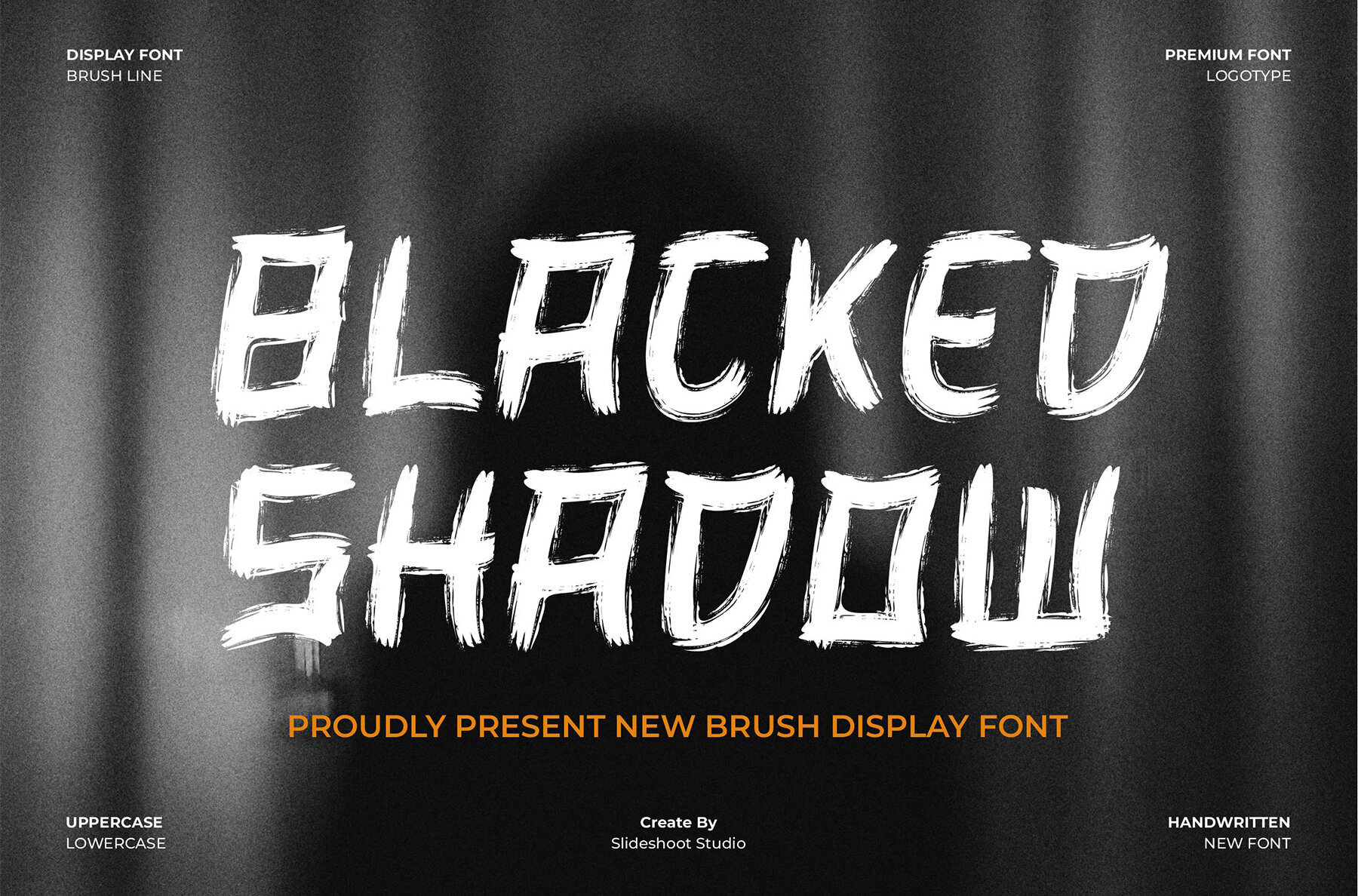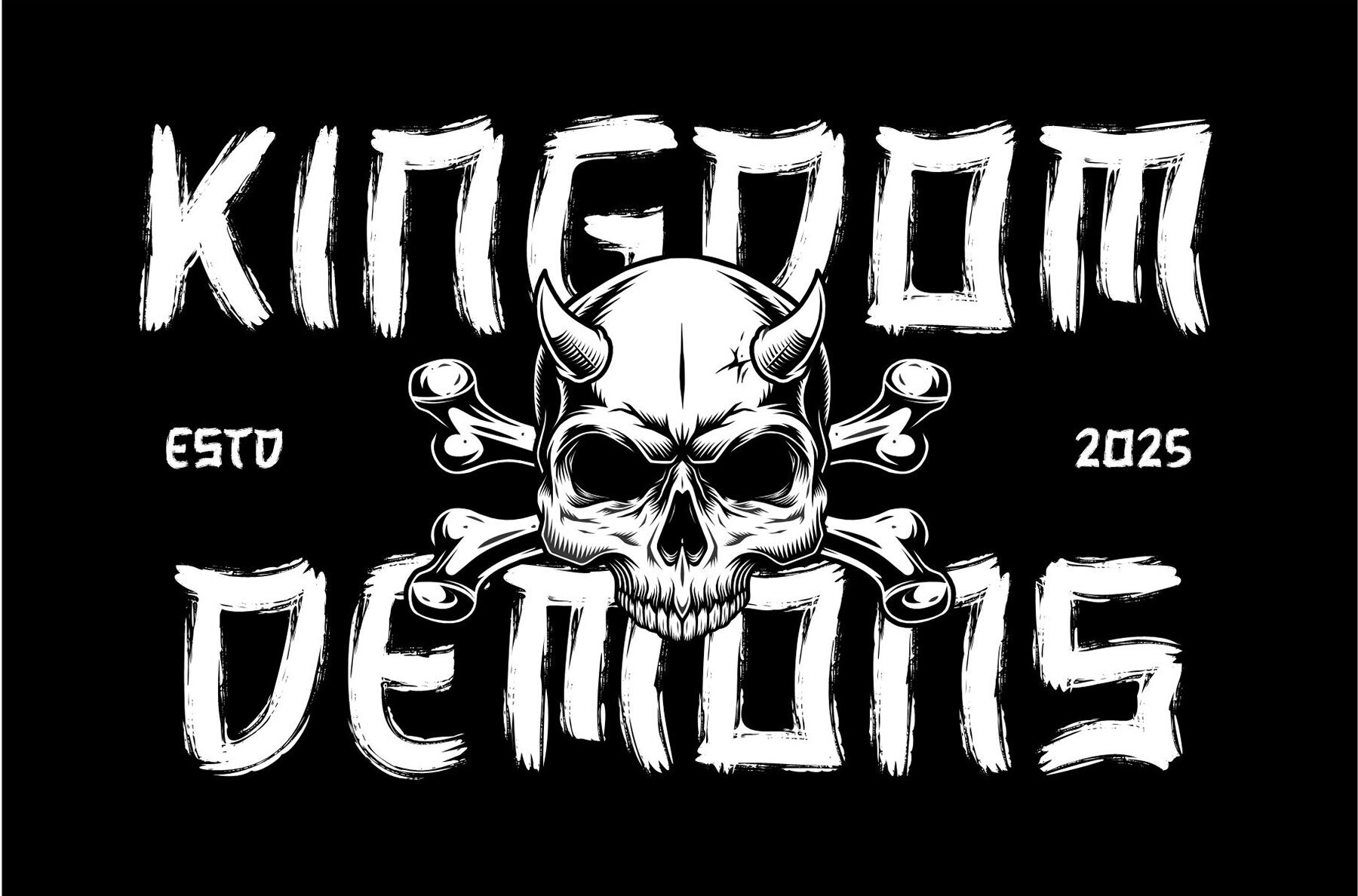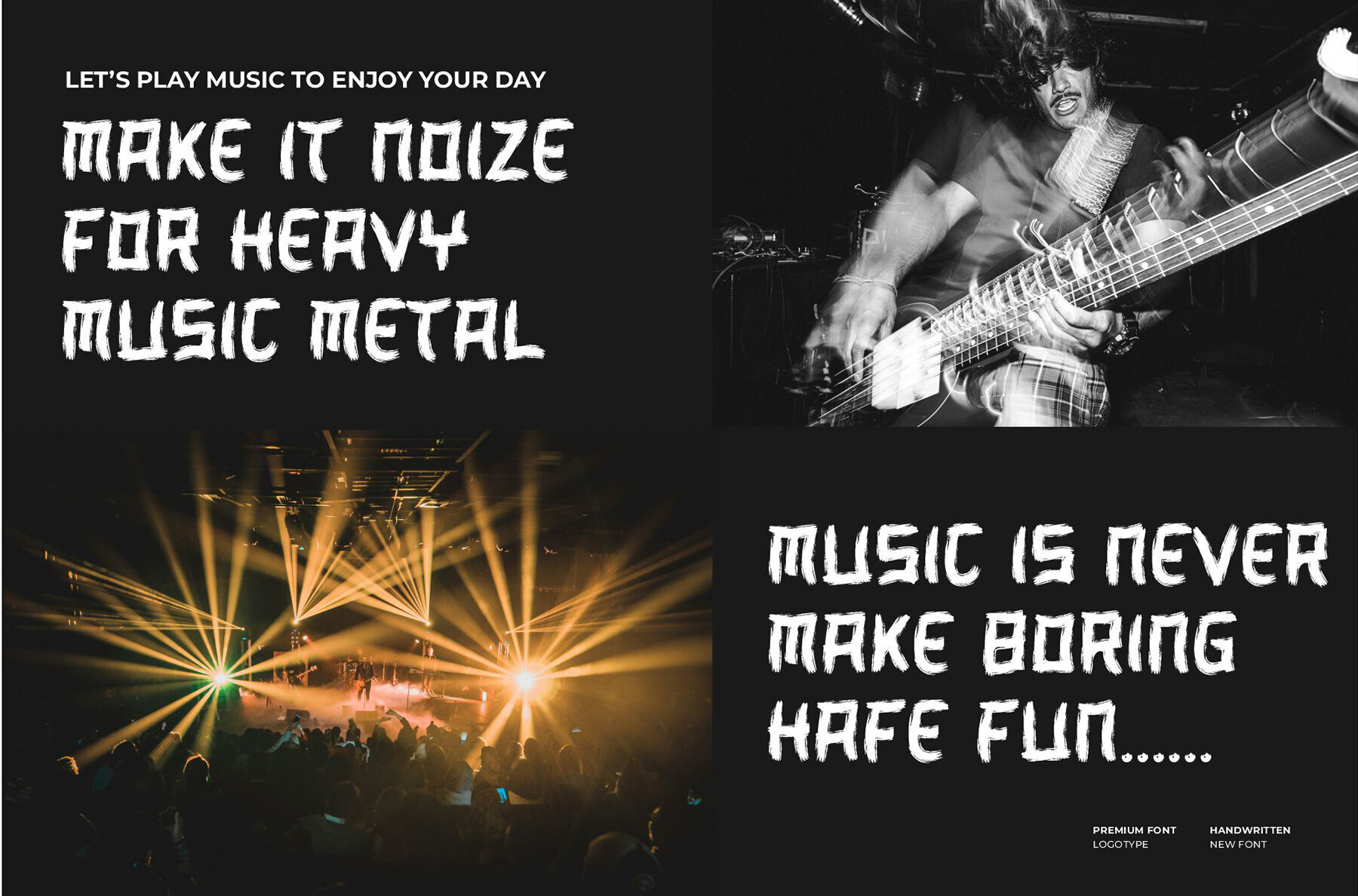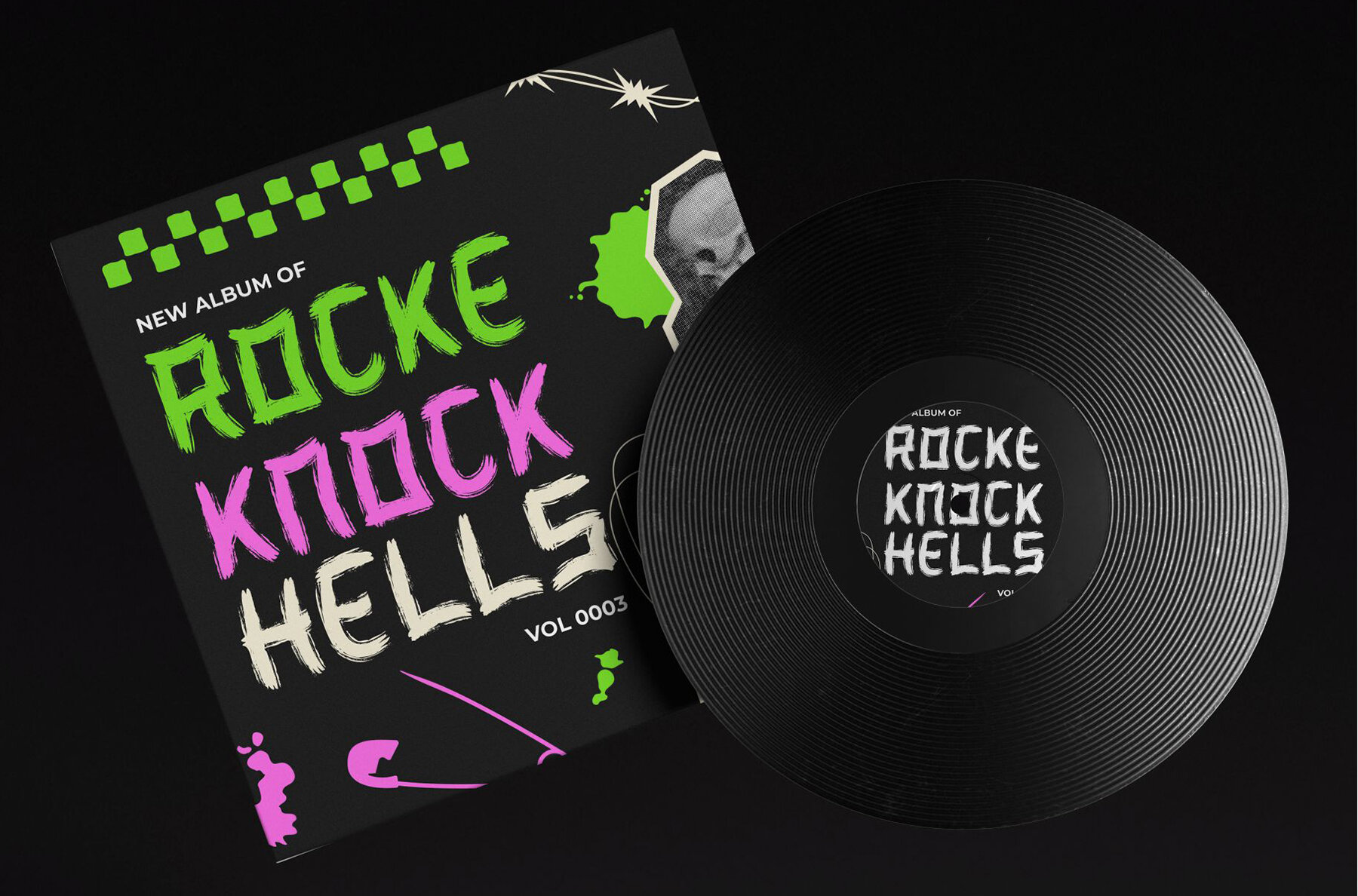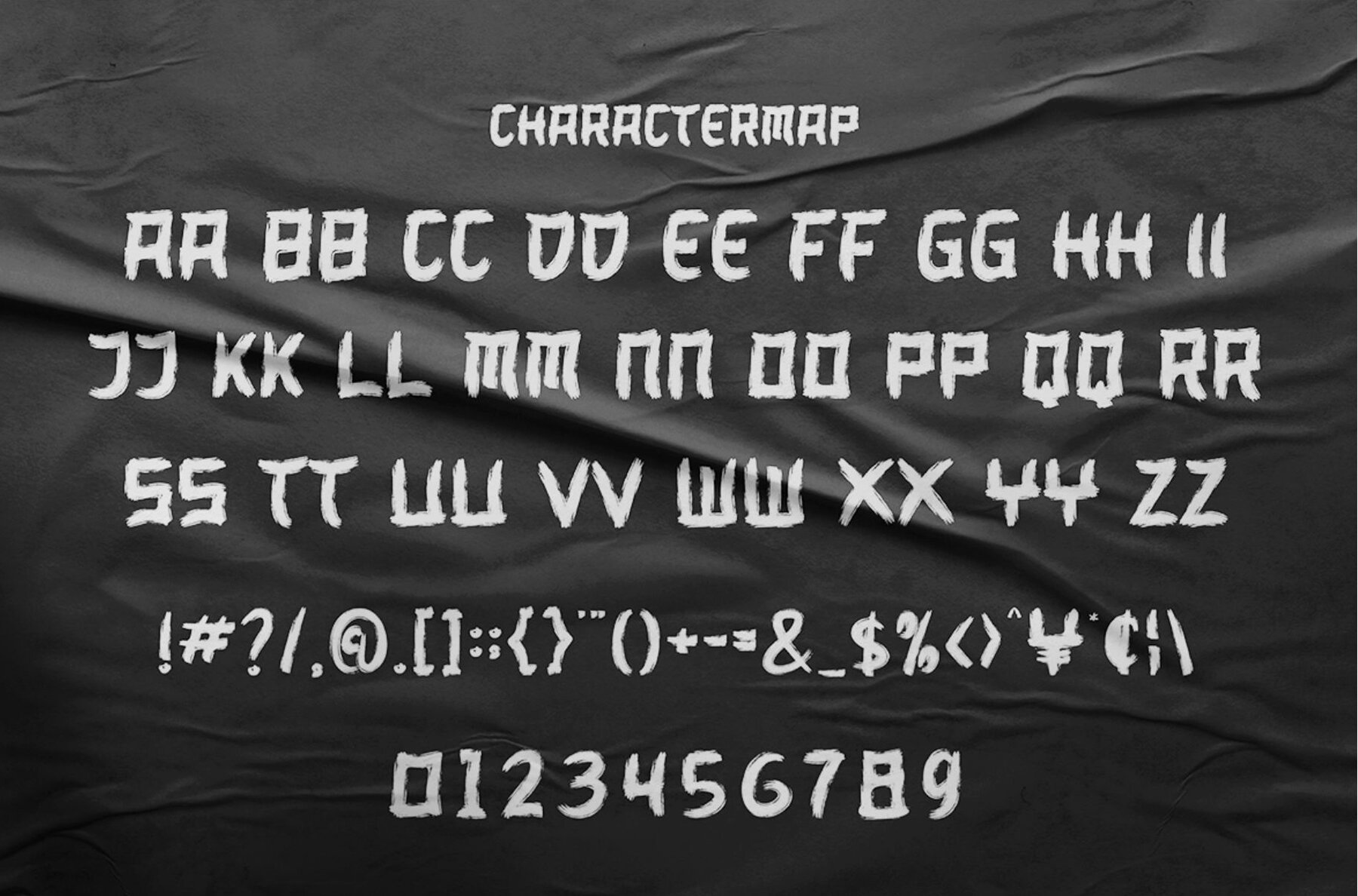
Blacked Shadow Font
Blacked Shadow
Blacked Shadow is a captivating brush handwritten display font combining modern, trendy, and bouncy elements with a unique wood-themed character. This cute, stylish display font is ideal for enhancing your design projects with an artistic flair—from invitation cards to movie titles and business cards, to logos and brand names.Explore the Blacked Shadow by Slide Font